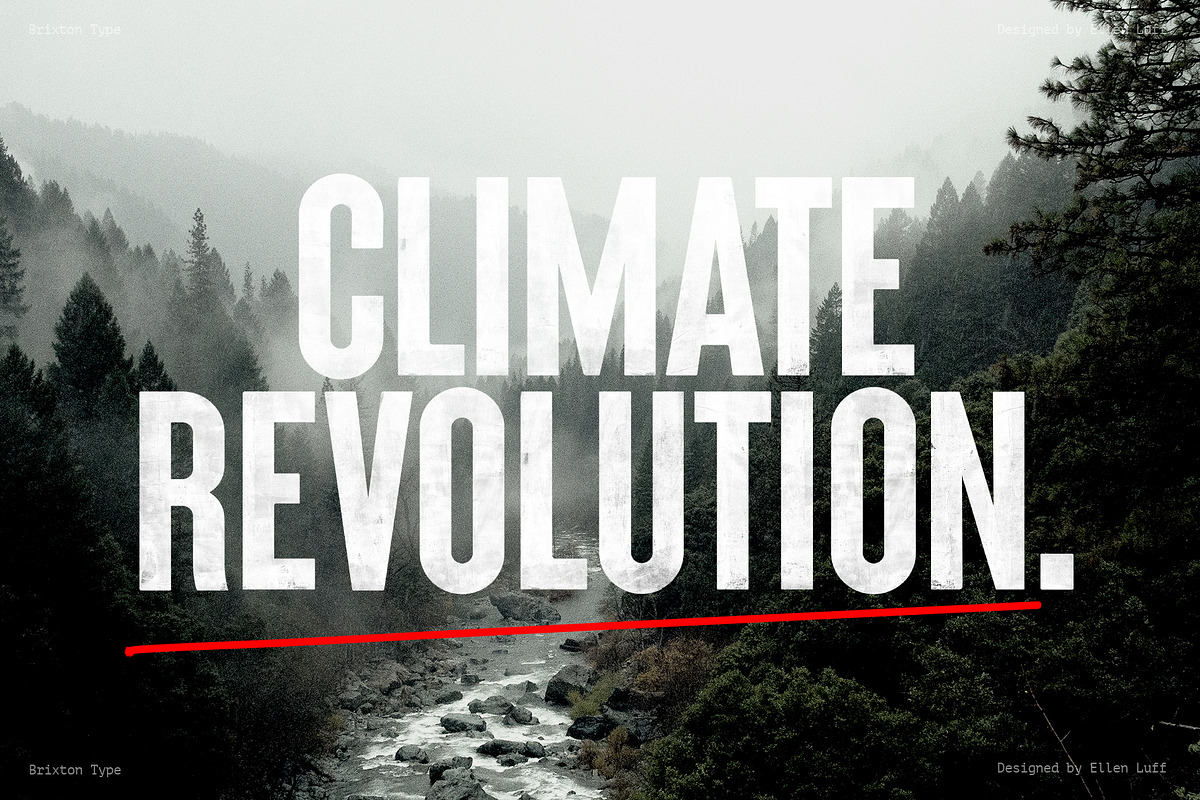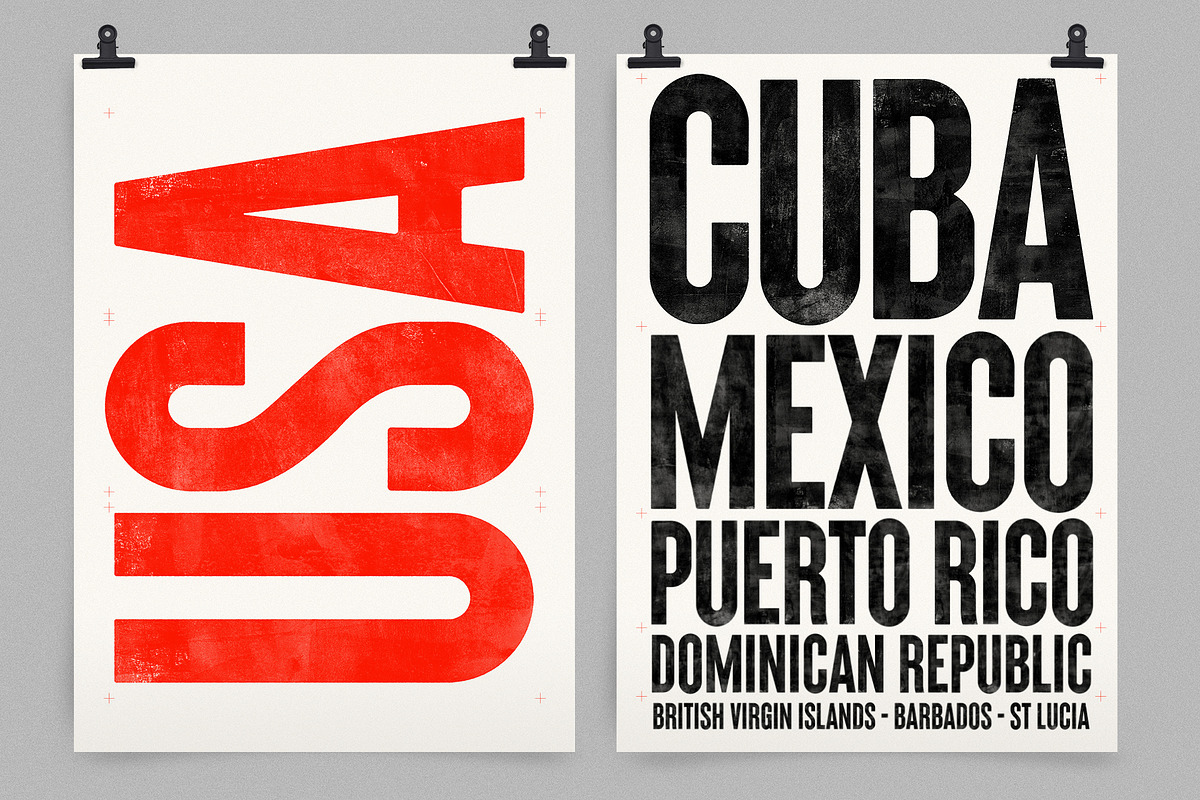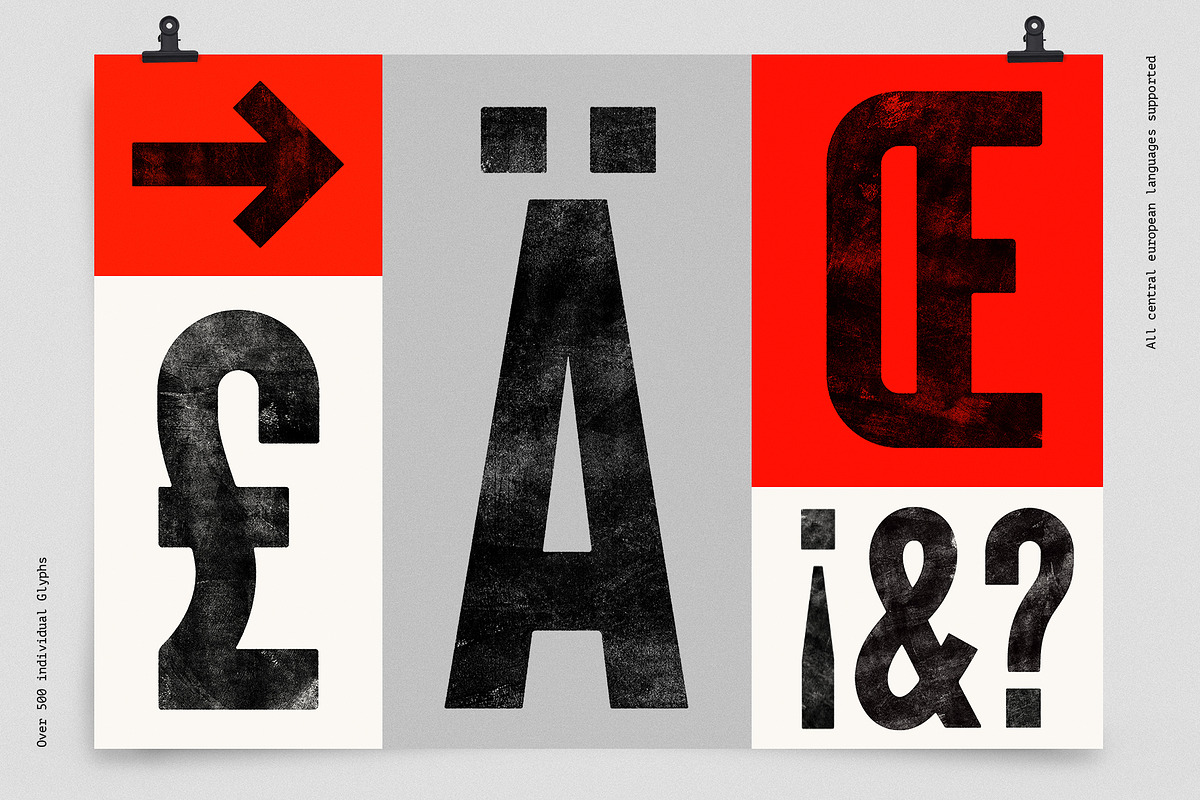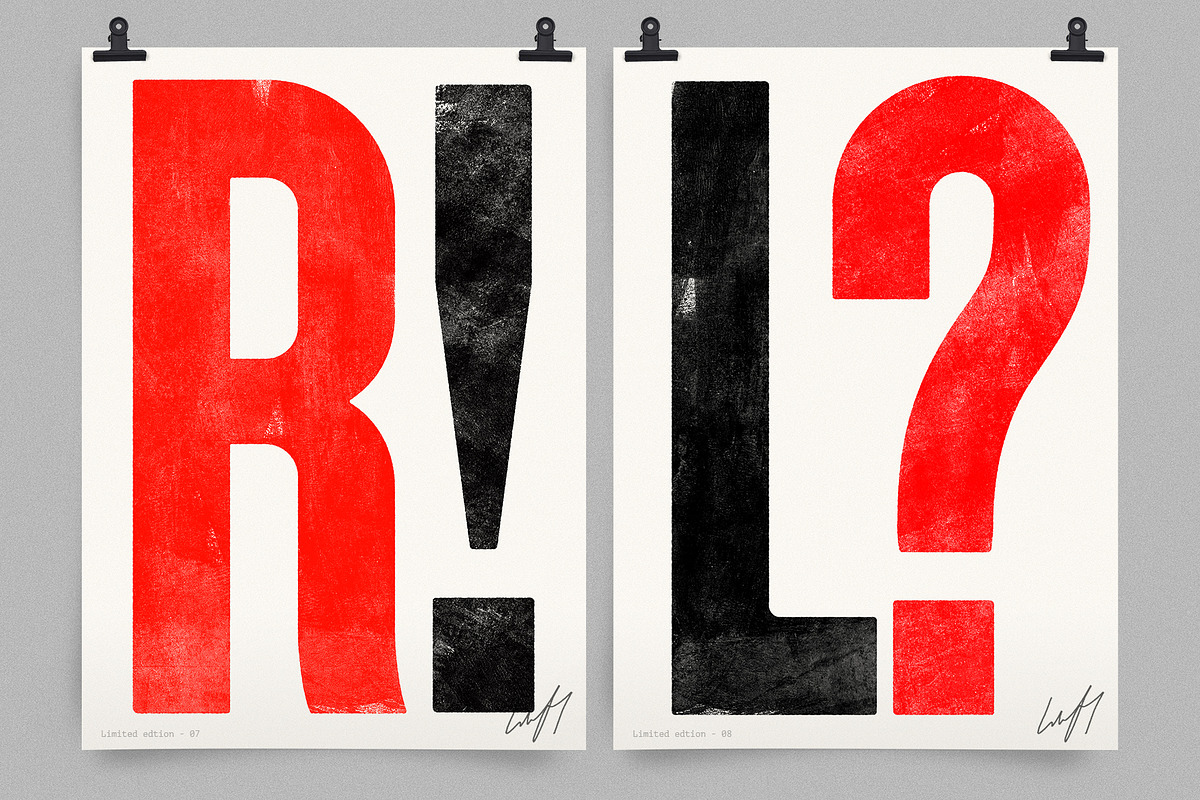
Brixton is a bold, hand-printed typefamily that embraces the original letterpress style, bringing a unique vintage aesthetic to your designs. With its narrow, powerful shapes, Brixton is perfect for strong, impactful typography, while its authentic textures add a handcrafted feel to any project.
SVG fonts contain tonnes of detail and texture never possible before, they can be used in any color and on any background. Brixton typeface includes two SVG letterpress styles: Wood and Lead. Both have completely different transparent textures with incredible detail.
Brixton typeface also includes its vector counterparts, making the Brixton a versatile letterpress font for everyone. The use of color reveals Brixtons full potential, whilst powerful designs wishing to highlight the gritty textures look great in black and white too.
It is an all caps font, with two alternatives for every letter, to maintain the custom-made look, without obvious doubles. It includes ALL Central European language support.